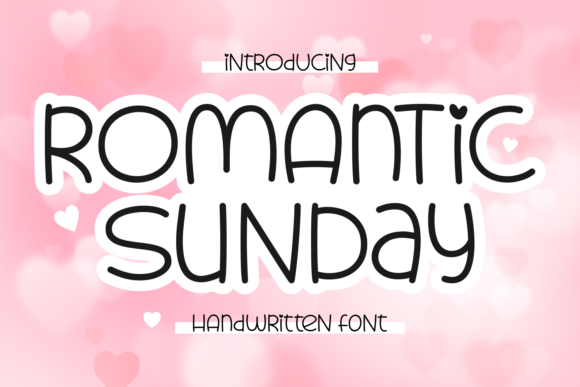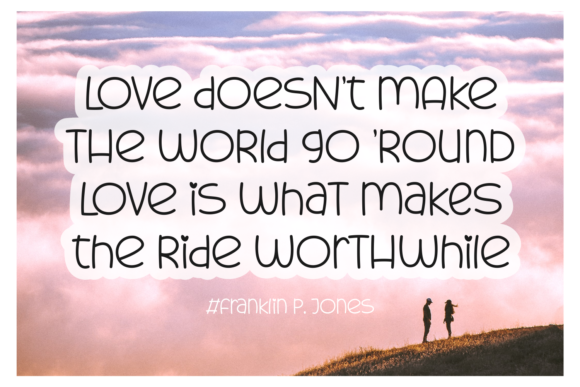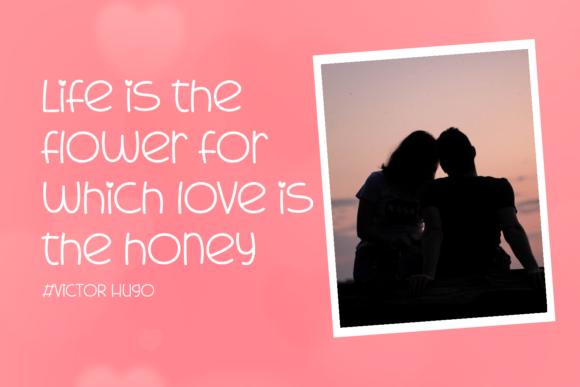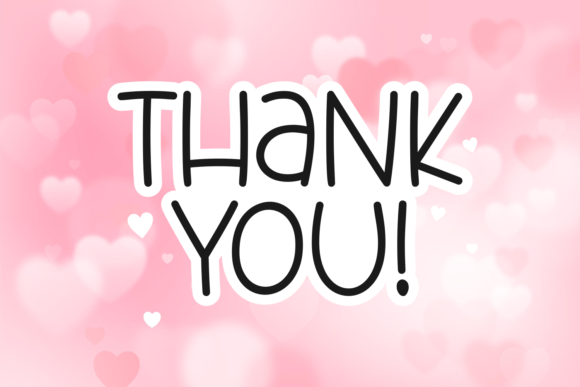
Romantic Sunday Font
About Romantic Sunday Font
Romantic Sunday is a cute, friendly and round lettered handwritten font. Whether you use it for cartoon related designs, children games or just any creation that requires a lovely touch, this font will be an amazing choice.